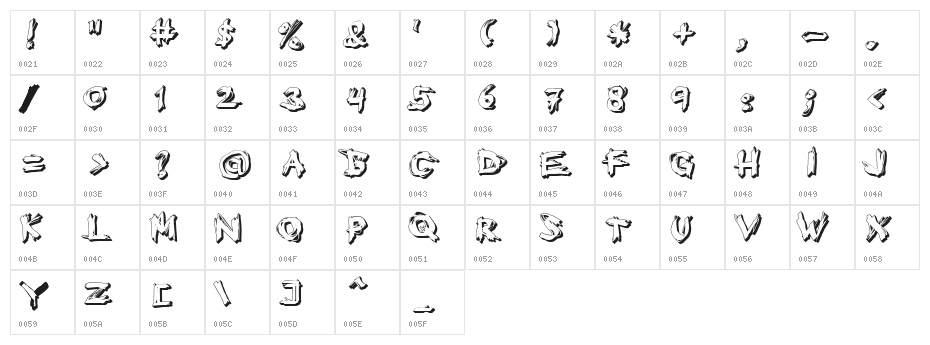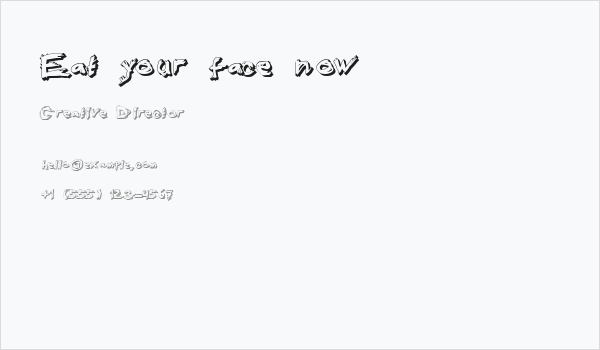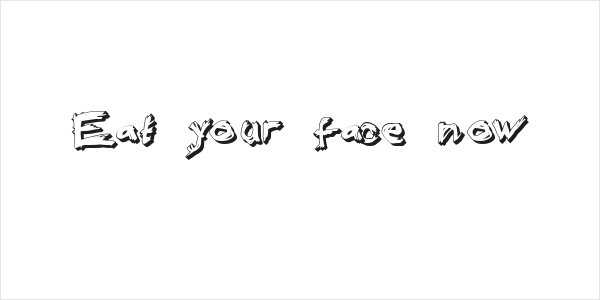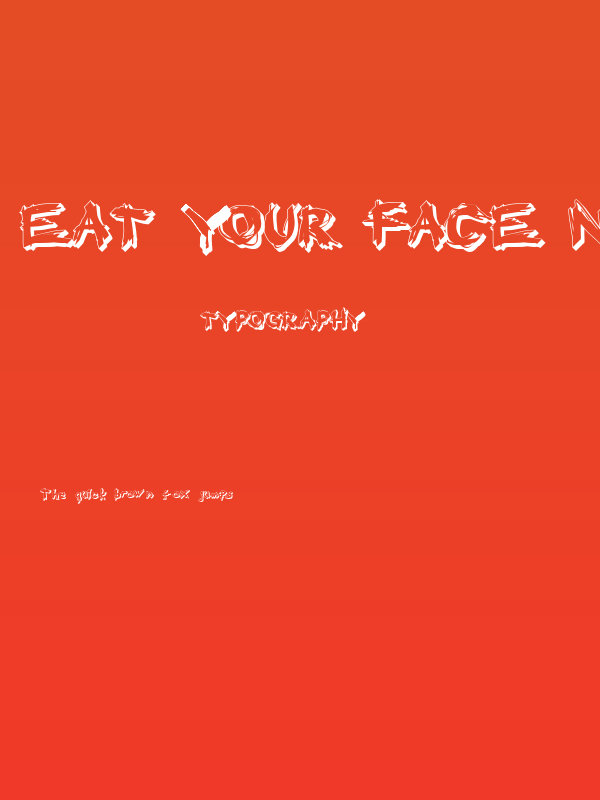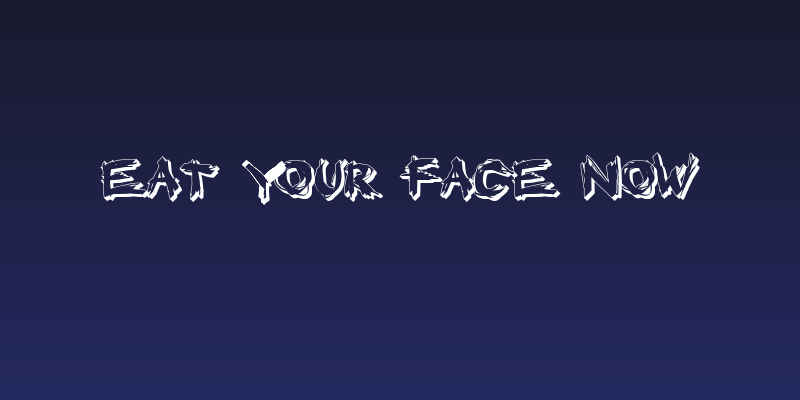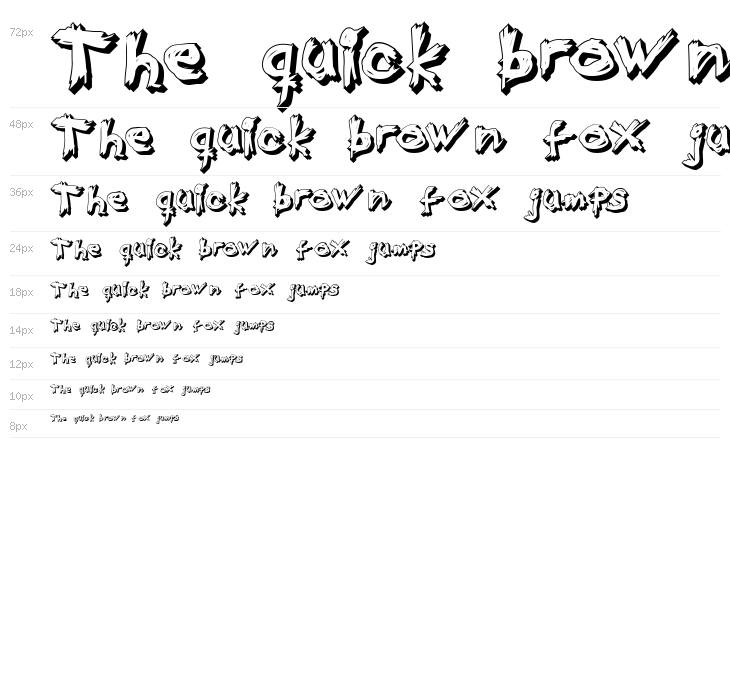
Eat your face now Font
Eat your face now Description
This font features a bold, graffiti-inspired style with jagged edges and a three-dimensional shadow effect. The uppercase and lowercase letters maintain a consistent, edgy aesthetic, giving the impression of being hand-drawn with a brush or marker. The numbers and special characters follow the same design, ensuring uniformity across all elements. The font's dynamic and energetic appearance makes it stand out, with a playful yet rebellious vibe. Its unique style is perfect for projects that require a bold statement or an urban, street-art feel. The overall design is both eye-catching and memorable, making it suitable for creative and unconventional uses.
| Overall Style | Modern, Urban, Graffiti |
| Proposed Projects | Ideal for street art designs, music album covers, event posters, and urban-themed branding. |